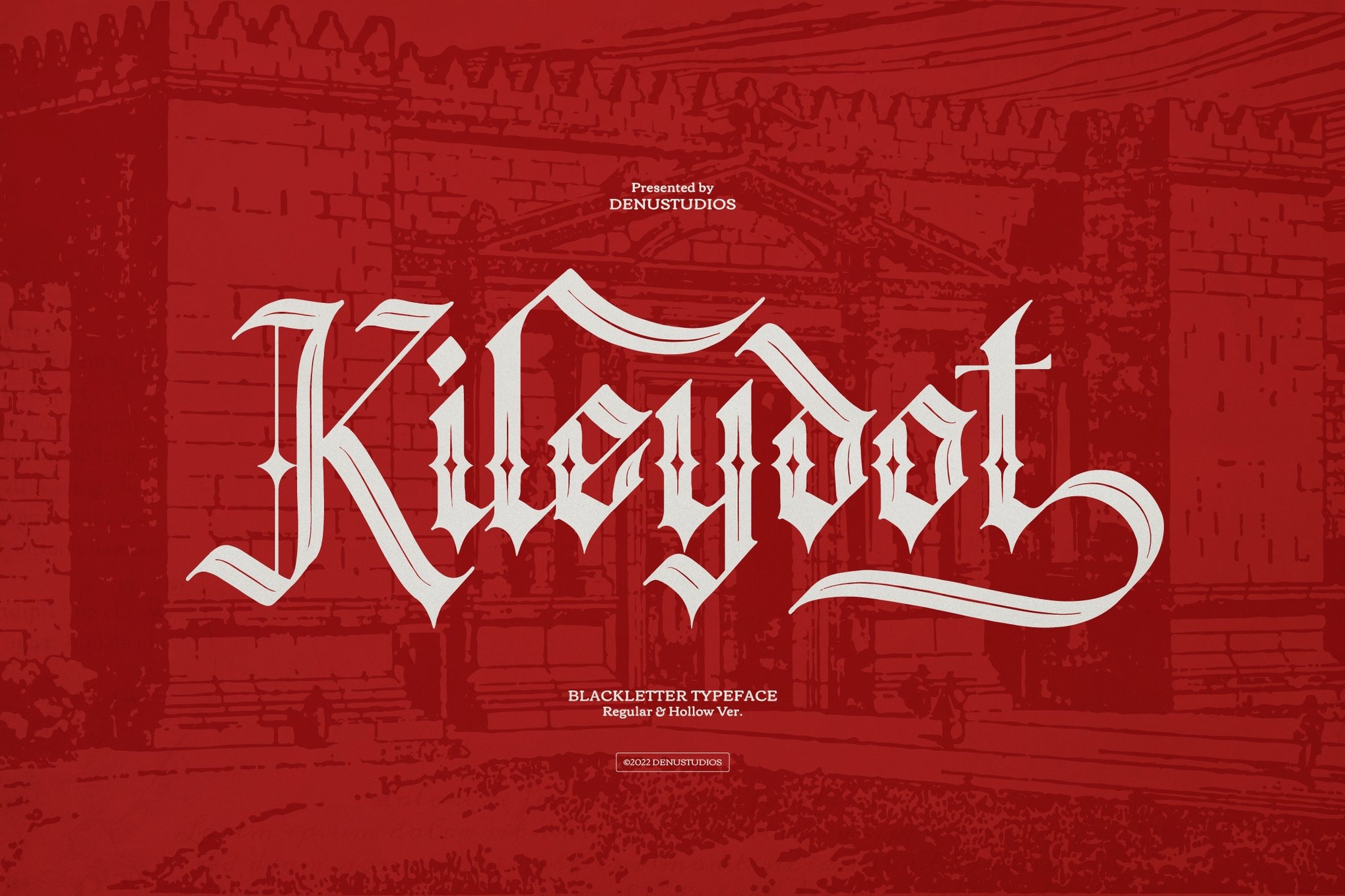
Kileydot – Blackletter Font
Kileydot – Blackletter Font is a stylish typeface that enhances visual appeal and works effortlessly in many design contexts. The Kileydot font is designed to deliver a strong, versatile visual character, balancing aesthetics and readability. Every detail is carefully crafted to ensure a clear, consistent, and visually appealing result across a wide range of design needs. With well-structured letter proportions and support for features such as alternate characters and ligatures, this font allows for greater creative exploration. The final result is dynamic, distinctive, and professional, making it adaptable to a range of design styles.